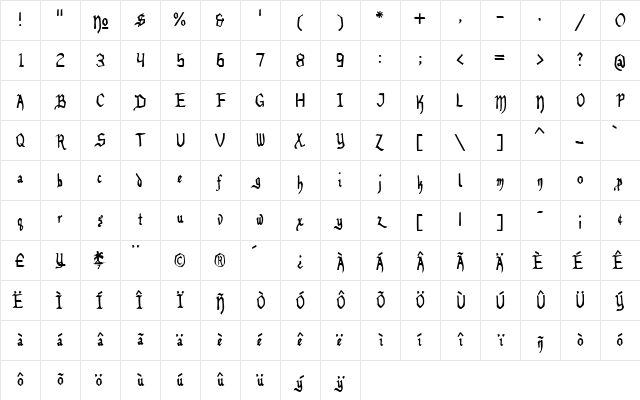
Benegraphic Regular
Design Context for Benegraphic
Benegraphic is a composed and adaptable typeface that performs quietly and consistently across a wide range of design contexts.
Pro Tip: Use Benegraphic in both headline and body roles to test its range before committing to a single application.